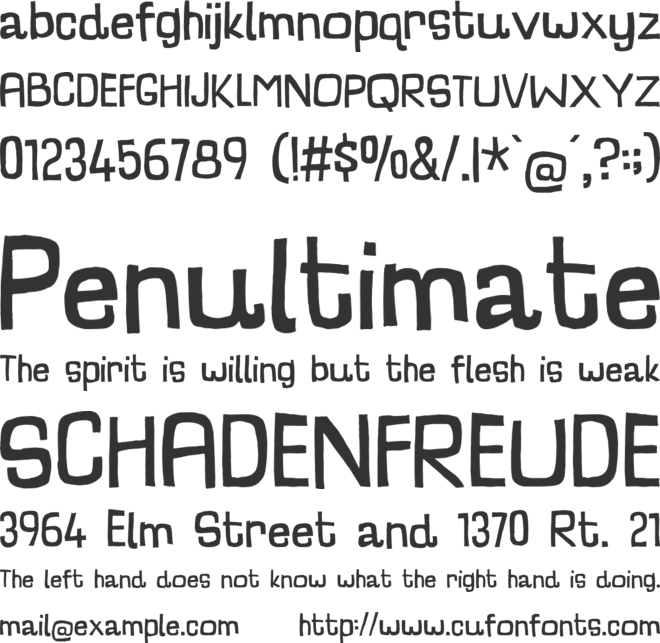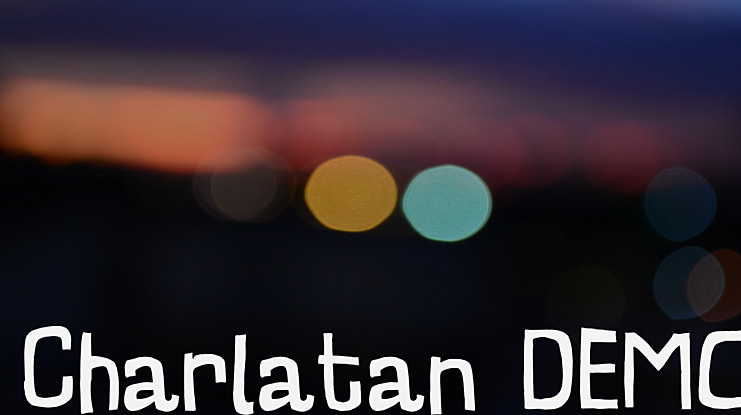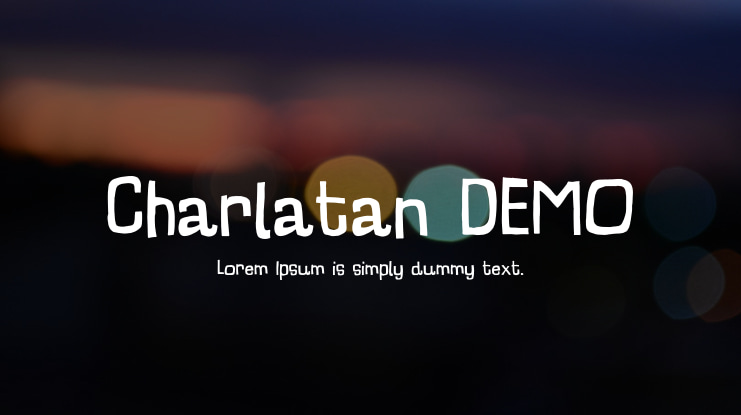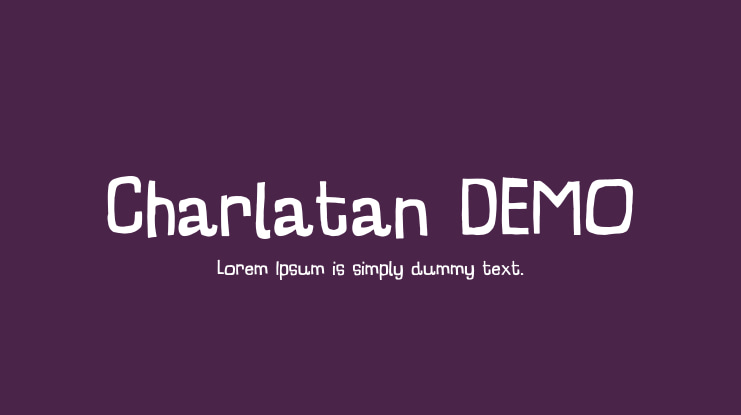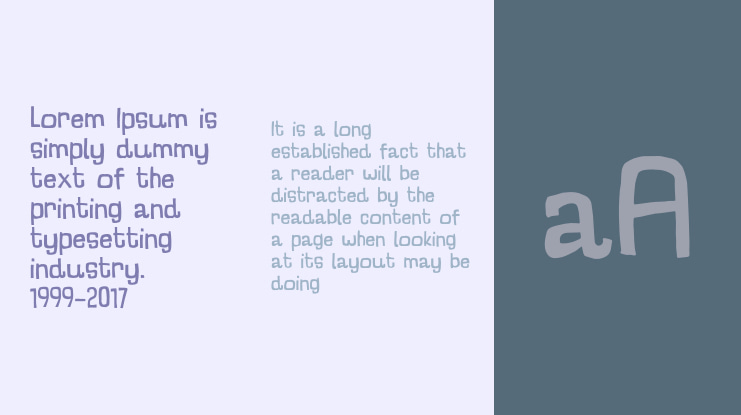
Charlatan DEMO Font
Charlatan is (despite the name!) a truly trustworthy font. Works well with everything that needs something legible and handmade!
Comes with contextual alternates (6 different versions of all lower-case letters!) that automatically cycles as you type!
And, of course, Charlatan is full of international characters!